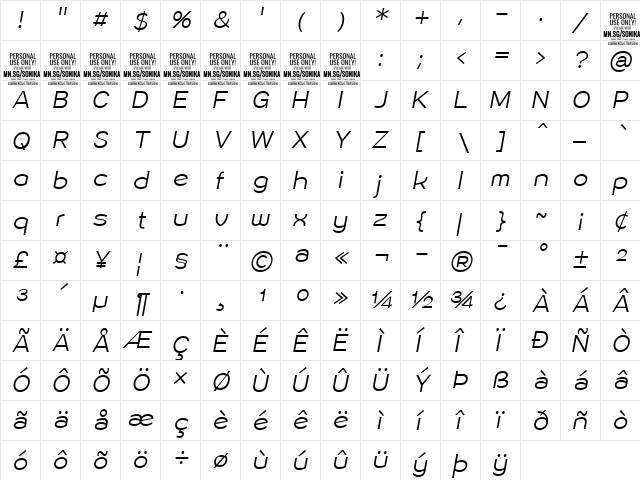
Sonika PERSONAL USE Light Italic Font Preview
| Foundry | Mans Greback |
| Designer | Mans Greback |
Design Context for Sonika PERSONAL USE Typeface
Sonika PERSONAL USE takes a measured approach to typography — its balanced proportions and neutral character make it a reliable workhorse for both digital and print work. The dynamic lean of this cut emphasises speed and emphasis in any layout. The delicate stroke weight brings airiness and refinement to layouts.